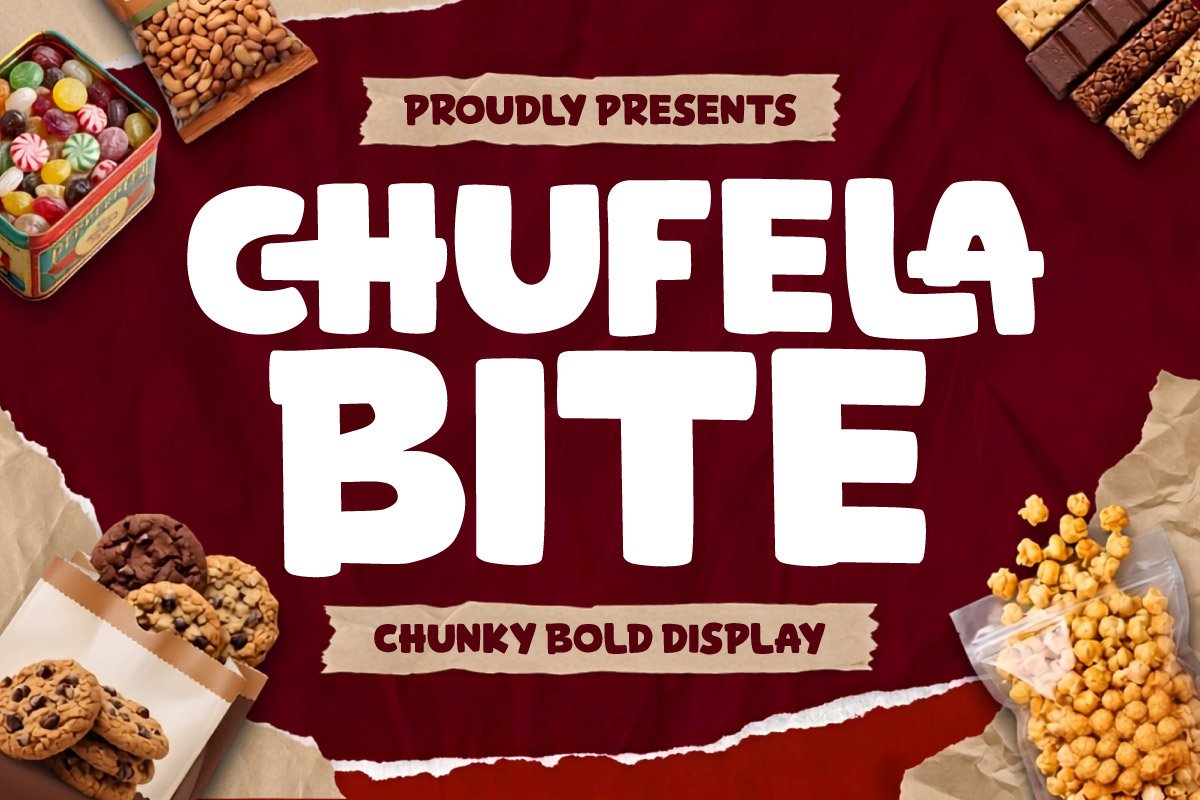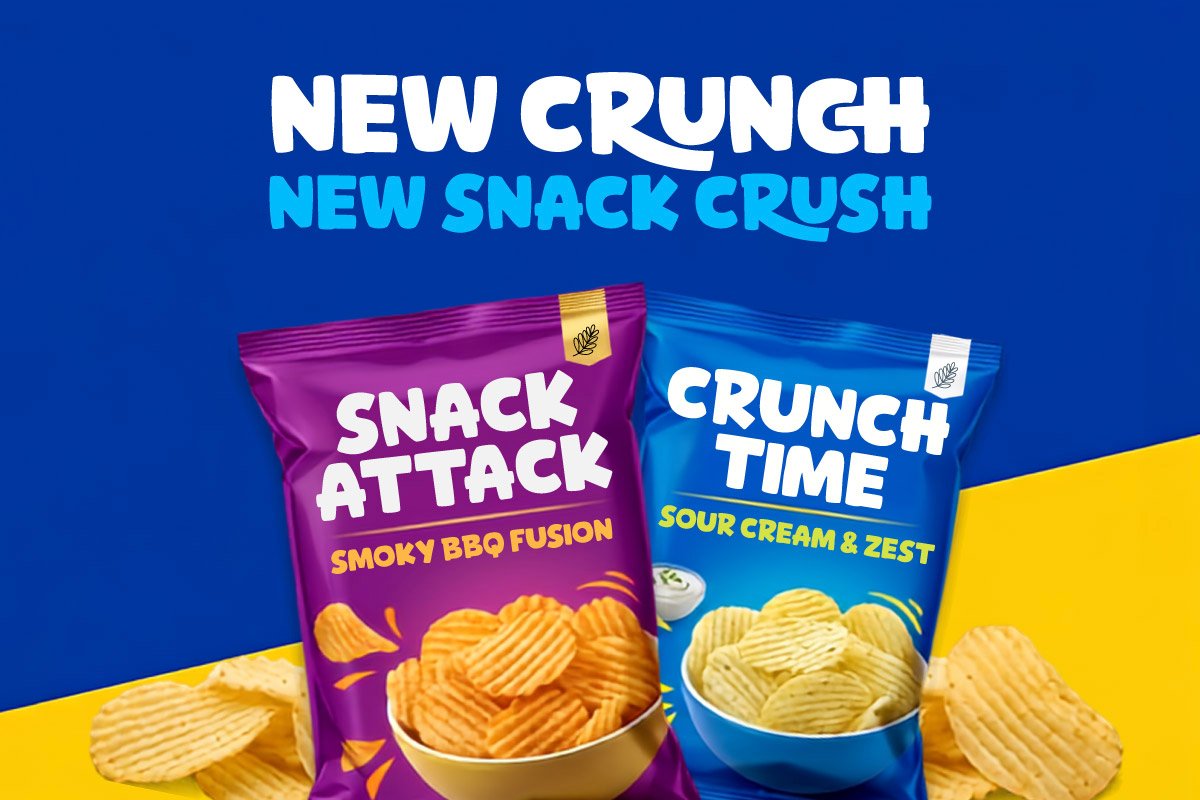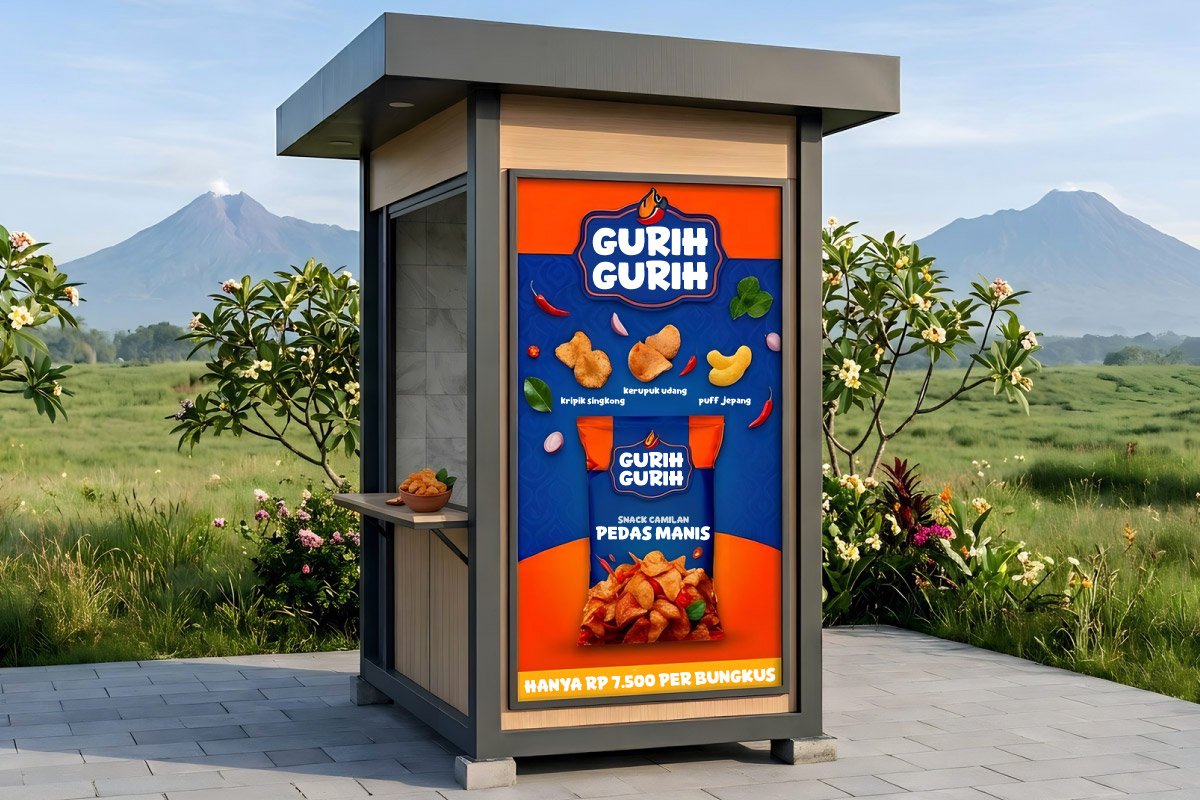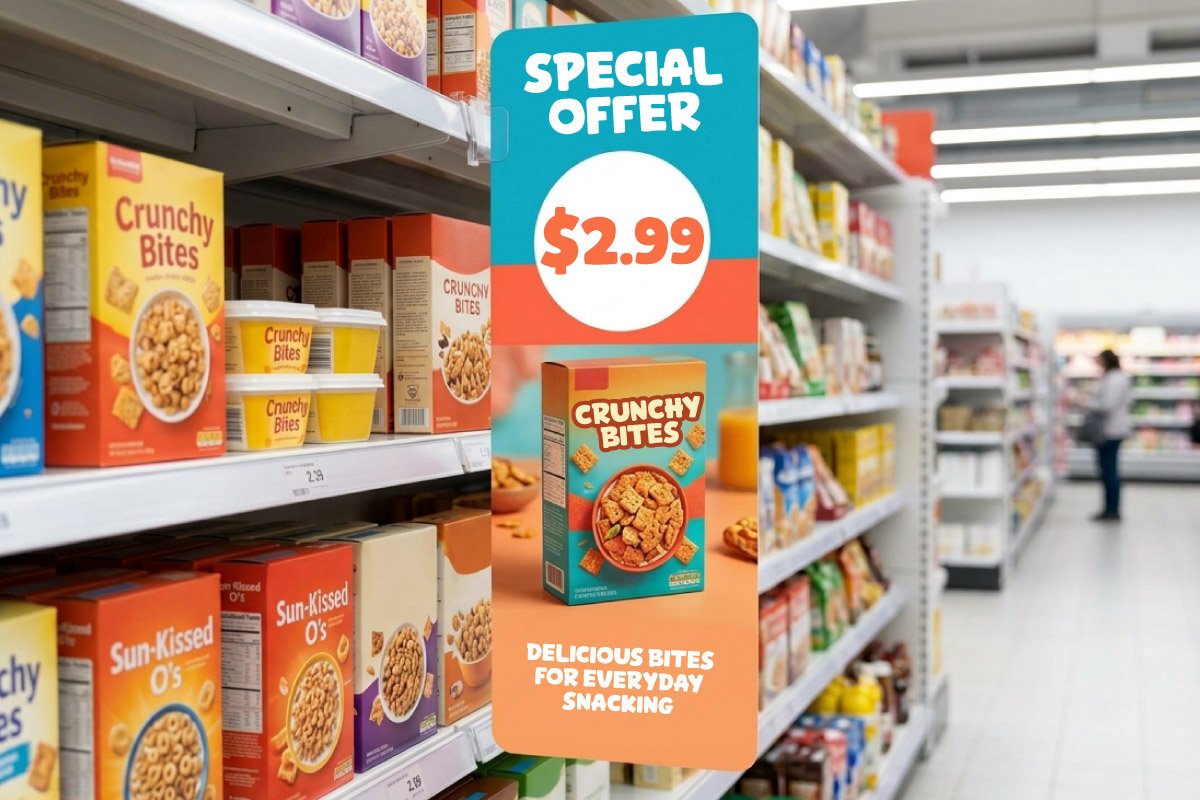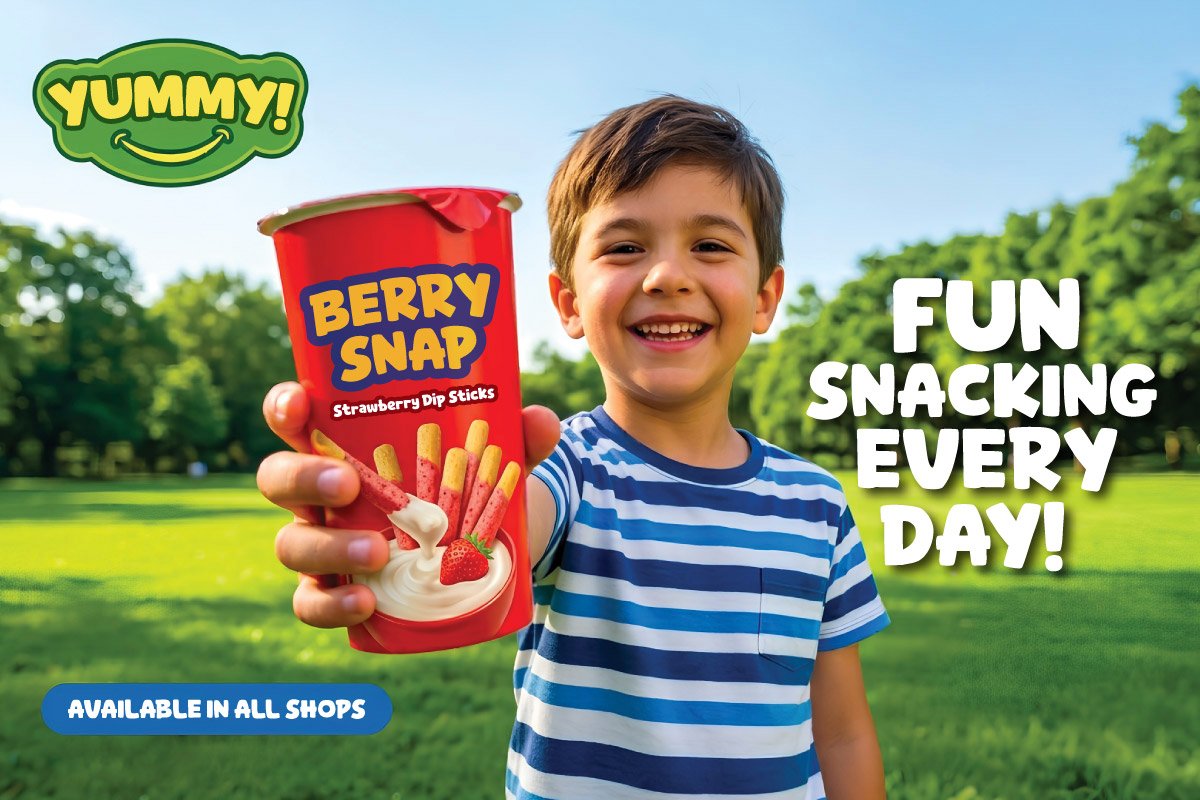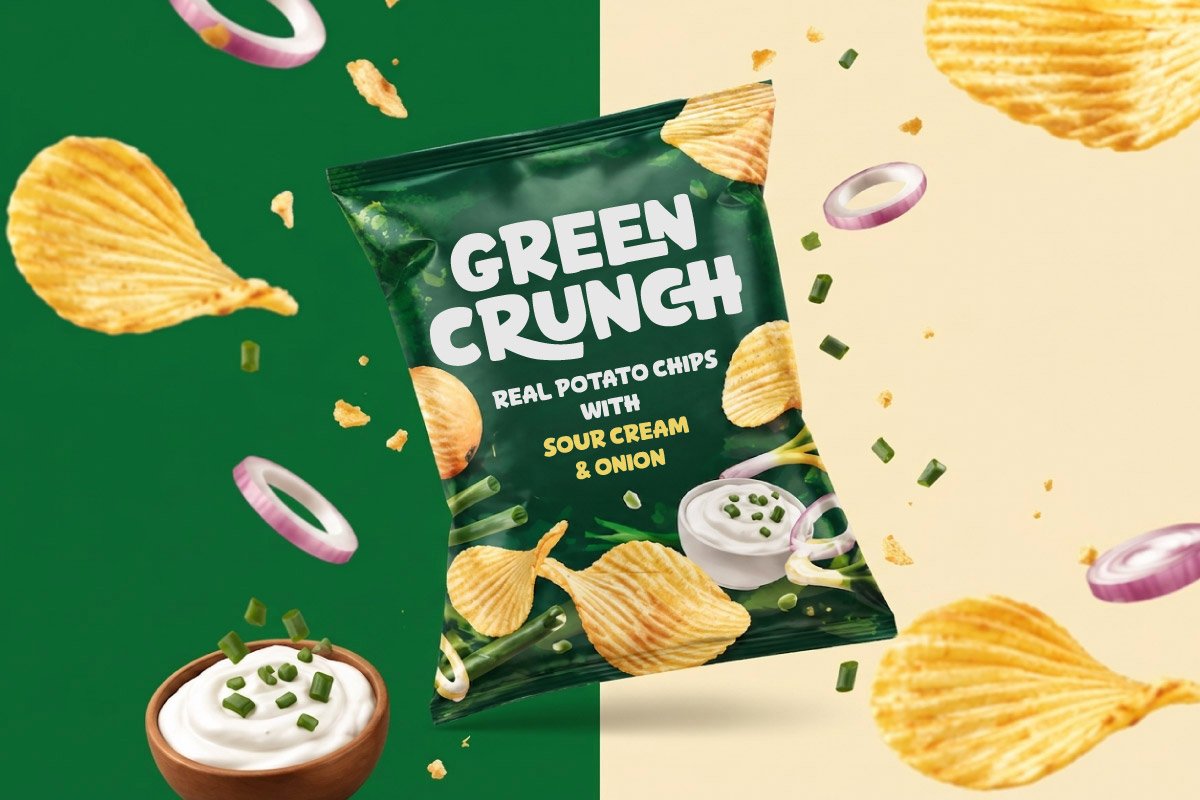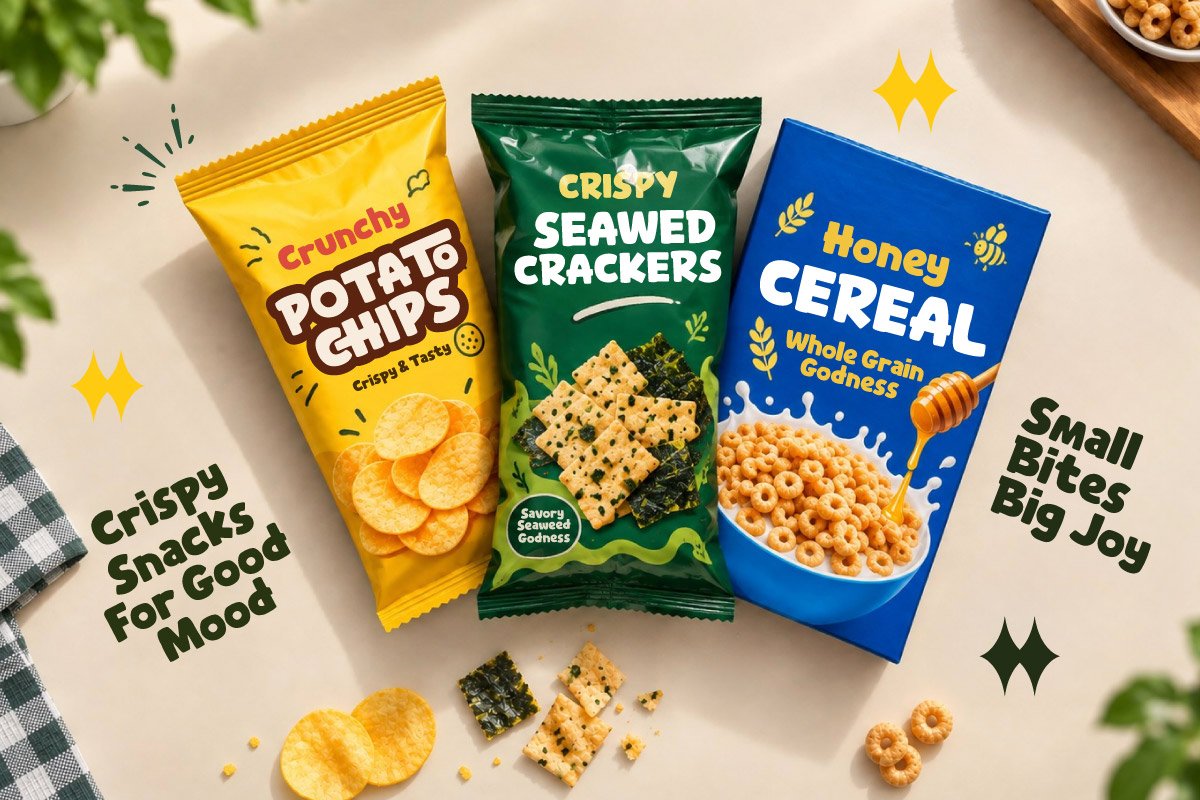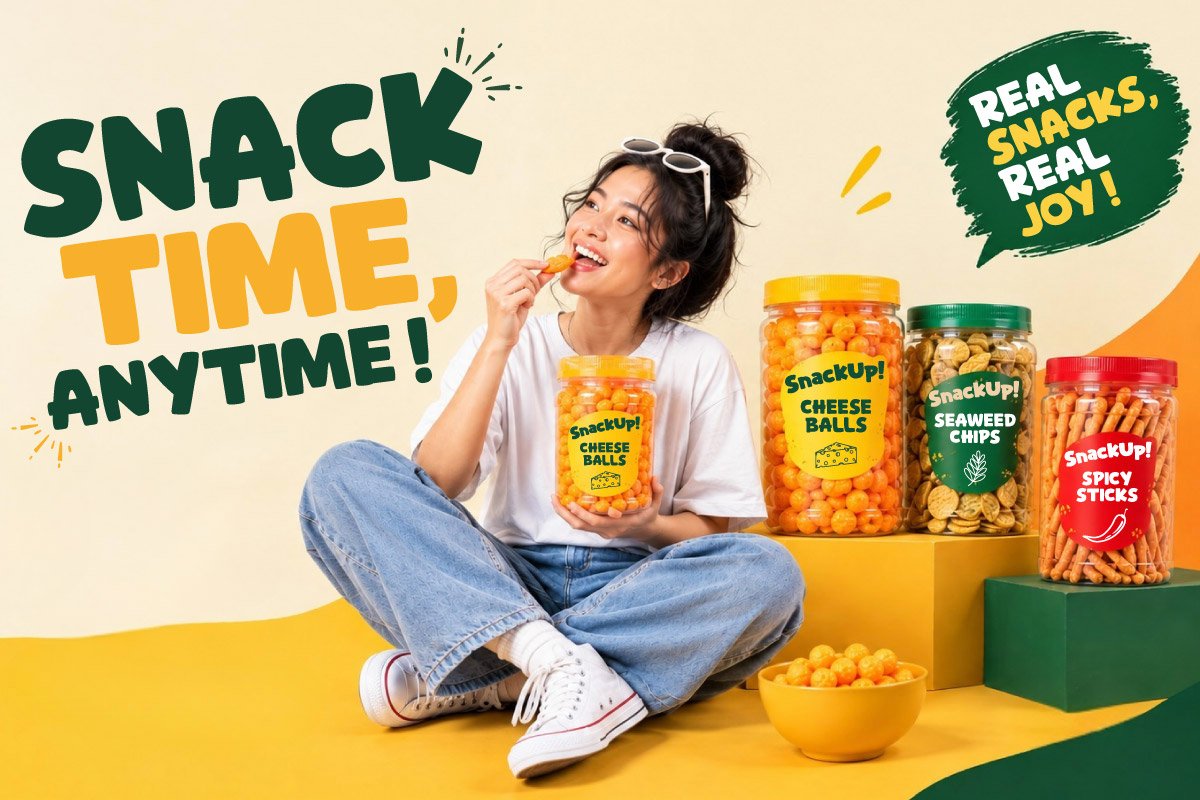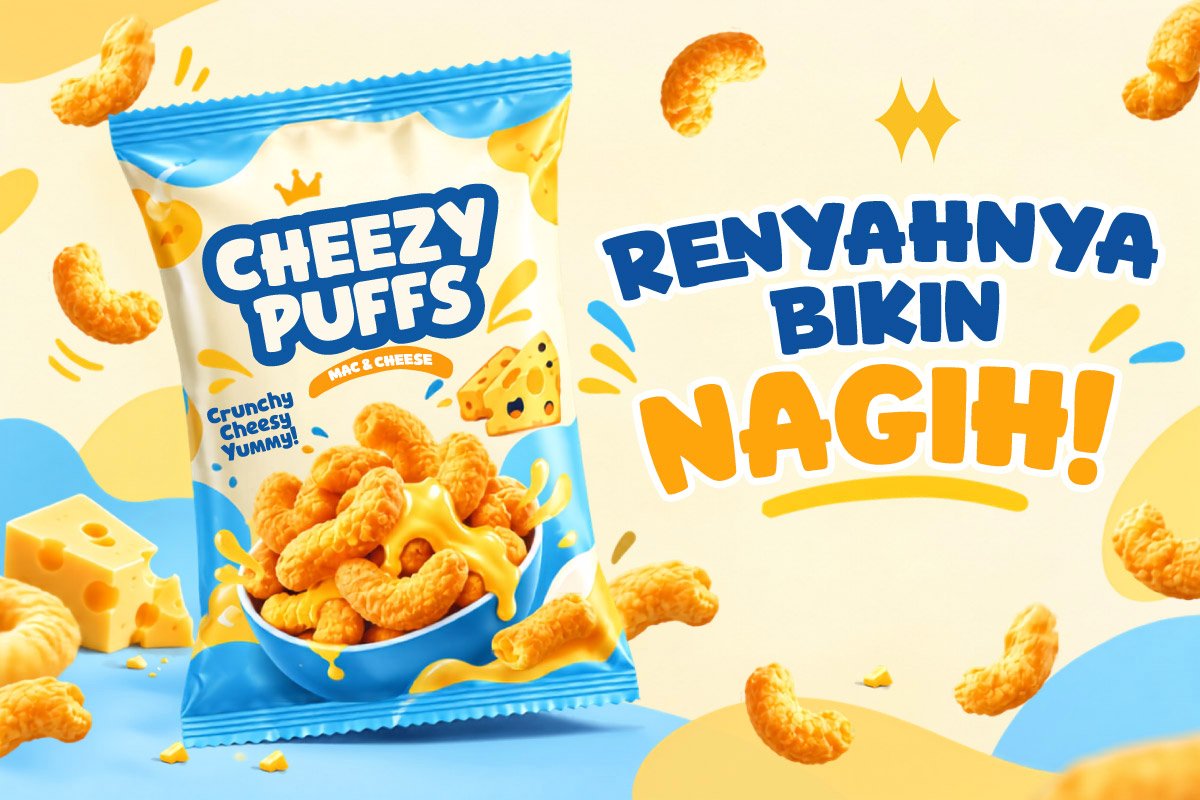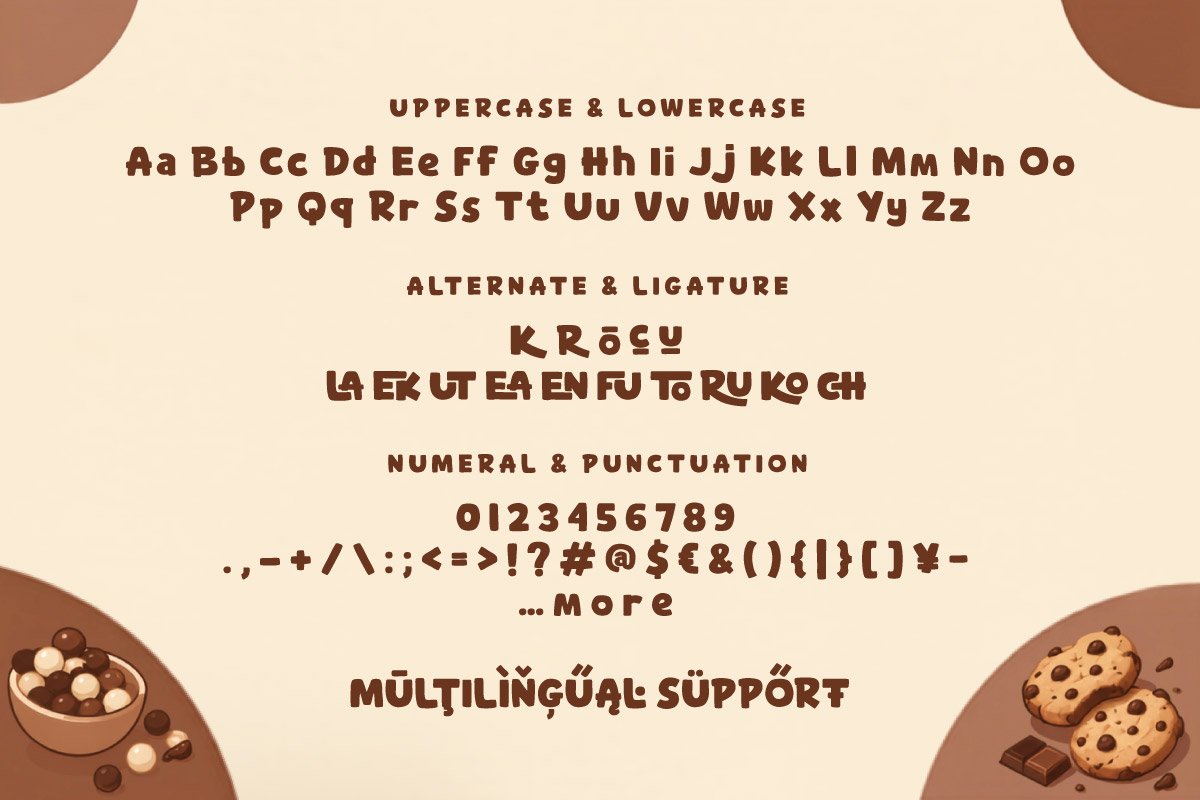
- Chufela Bite – Chunky Bold Font
Chufela Bite steps up as a chunky bold display font packed with friendly energy, appetite appeal, and high-impact personality tailored for the competitive food, snack, and FMCG industries. Featuring thick, solid letterforms with rounded organic curves, this typeface delivers an instantly delicious visual impression that grabs attention effortlessly.
Engineered for maximum retail shelf impact, Chufela Bite excels across snack pouches, foil bags, cereal boxes, convenience food labels, and supermarket promotional signage. Its punchy, high-visibility weight ensures that product titles, flavor callouts, and advertising headlines stand out loud and clear in crowded shopping aisles.
Packed with uppercase and lowercase sets, numbers, punctuation, extended multilingual support, and a rich library of custom ligatures and alternate characters, Chufela Bite gives packaging designers and brand strategists complete creative freedom. Give your food products an appetizing, playful, and unforgettable brand identity with Chufela Bite.